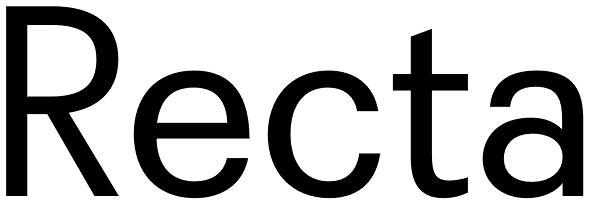
Recta
Recta was one of Aldo Novarese’s earliest contributions to the massive surge of the European sans serif genre that was booming in the middle of the 20th century. Initially published just one year after Neue Haas Grotesk came out of Switzerland and...